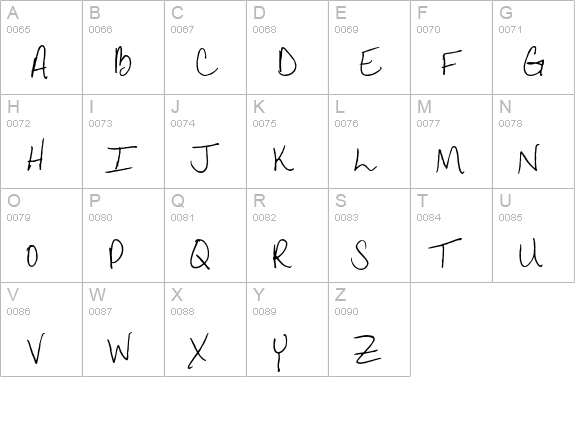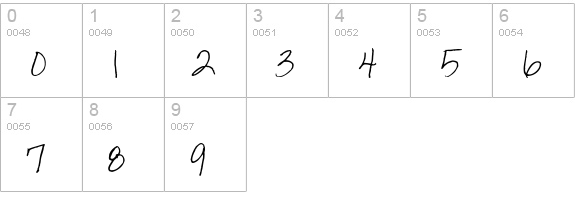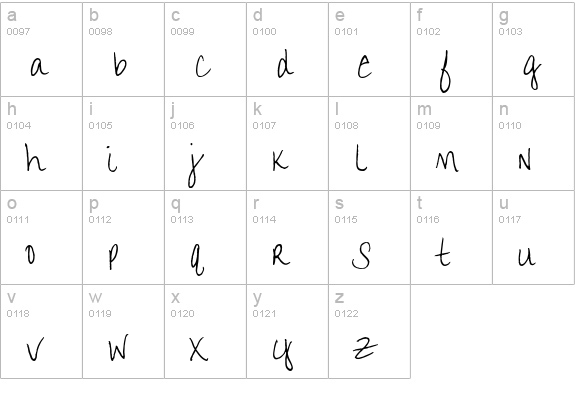
Aundee BTN font is a stylish and modern typeface that exudes elegance and sophistication. With its clean lines and unique design elements, this font is perfect for adding a touch of class to any project. Whether you're working on branding materials, invitations, or editorial designs, Aundee BTN font will elevate your work to the next level. What's even better is that Aundee BTN font is available for free download at FontsMarket.com. You can easily access this beautiful font and start using it in your projects right away. Don't miss out on the opportunity to enhance your designs with the timeless appeal of Aundee BTN font – download it today and let your creativity shine!